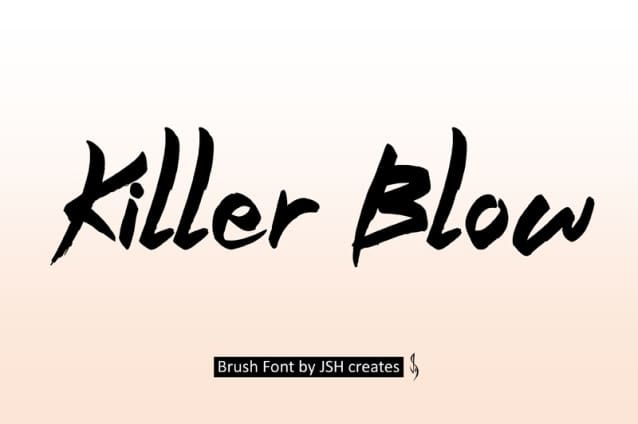
Killer Blow Font
Killer Blow Font, Cool brush font. Perfect for advertising and display purposes, including banners, book covers, shirts, posters, logos and much more!
Font includes all upper and lowercase letters, numbers, characters and punctuation.